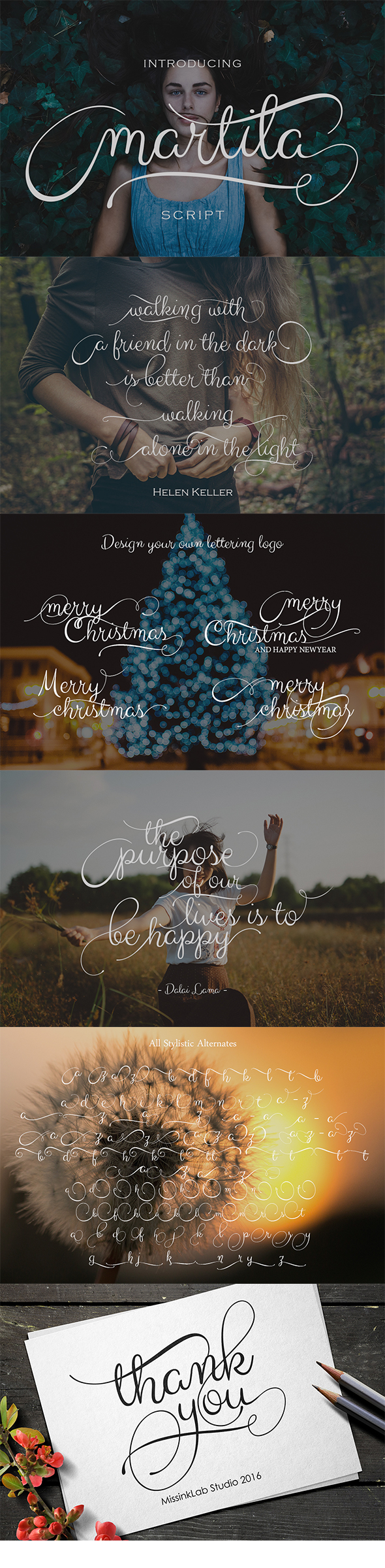
Martila Script
Martila Script Font
Introducing Martila Script, is a calligraphy wavy, modern and clasik, so soft, perfect for your next design, such as logos, printed quotes, invitations, cards, product packaging, headers and anything else about your imagination.Martila Script allows you to create custom dynamic text. you can access by turning on; Stylistic Alternates, Stylistic Set. Let’s switch from the reguler character into character alternative to get the text with the layout of your dreams. Martila Script also includes glyphs, punctuation, numbers.